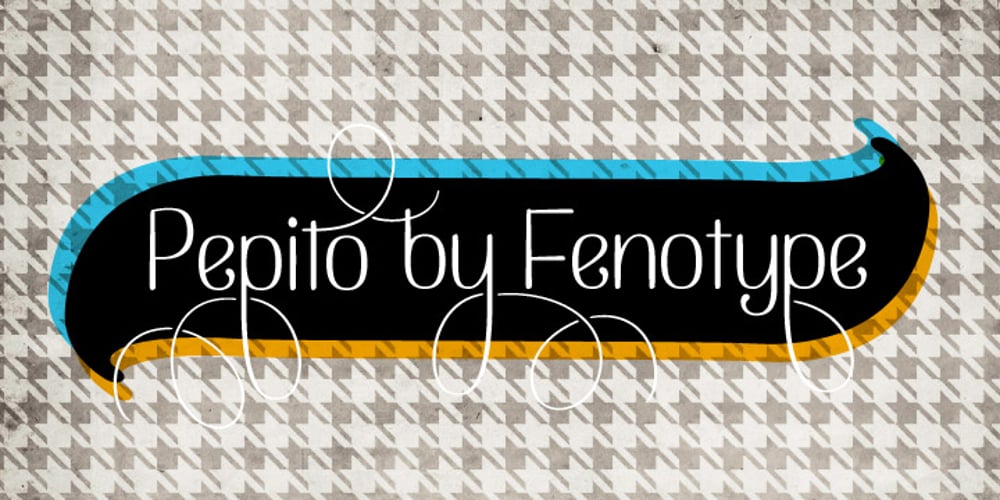
Pepito Font Family was designed by Emil Karl Bertell and published by Fenotype. Pepito contains 1 styles and family package options. Pepito is a nonconnected version of Pepita Script. Pepito has a nice set of special features, including a set of ornaments and Swash, Stylistic and Contextual Alternates that you can easily access in any OpenType-savvy program. For the best price, purchase Pepito with Pepita Script or other Fenotype fonts.